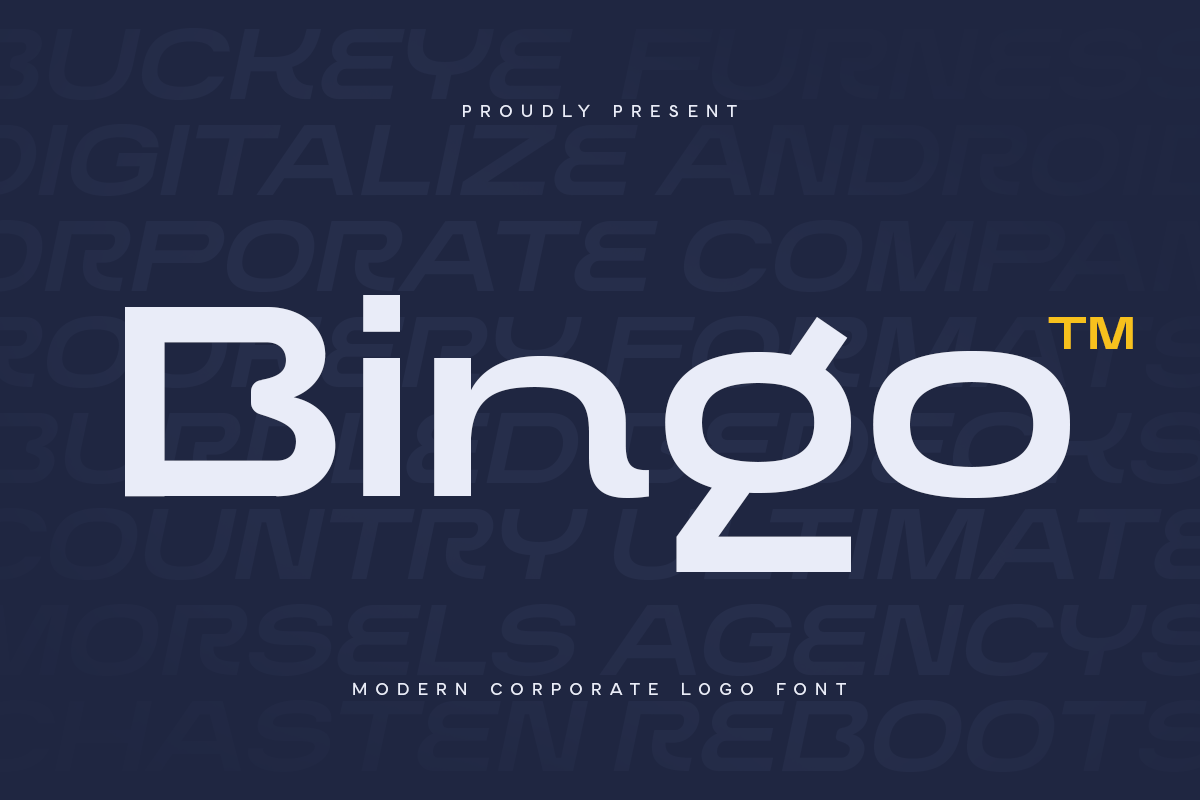
Free Font Bingo
-Logo Font
Bingo
Free Font Bingo - Logo Font
An Unique Modern Logo Font that we created special for Professional and Modern branding needs that will give you more Unique look, with alternates in unique shape will be ready to add value of your brand. It so nice to leverage designer or product owner that need solutions to make their design look more Professional and modern. And specially for this font, We prepared any alternate characters to help you create unlimited variations for your creative needs.